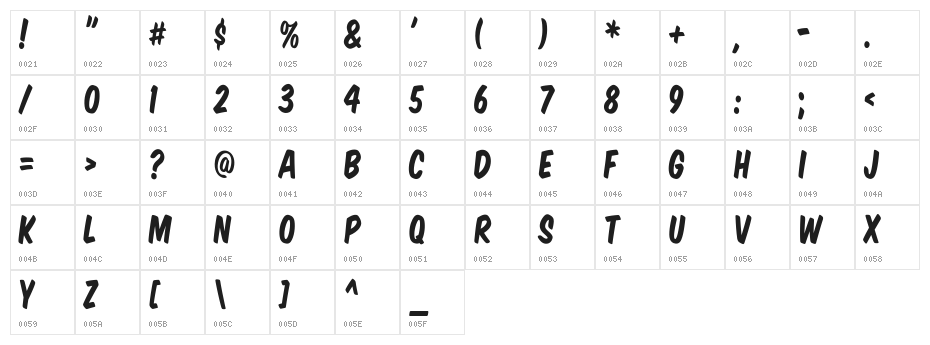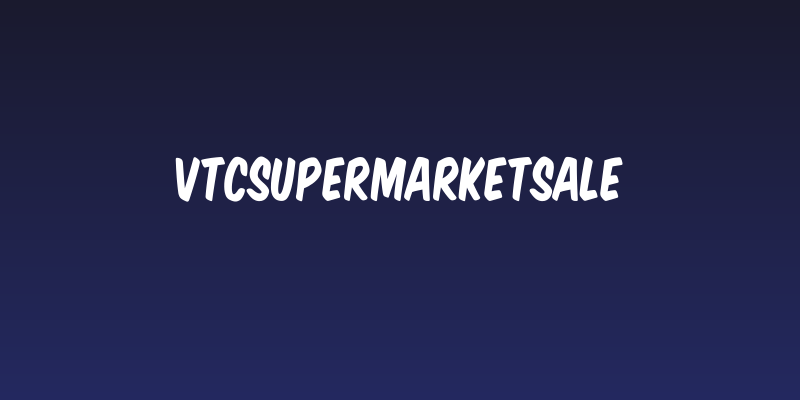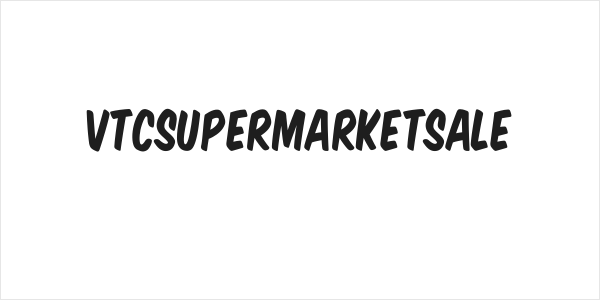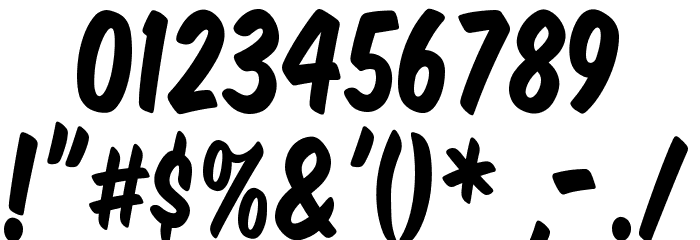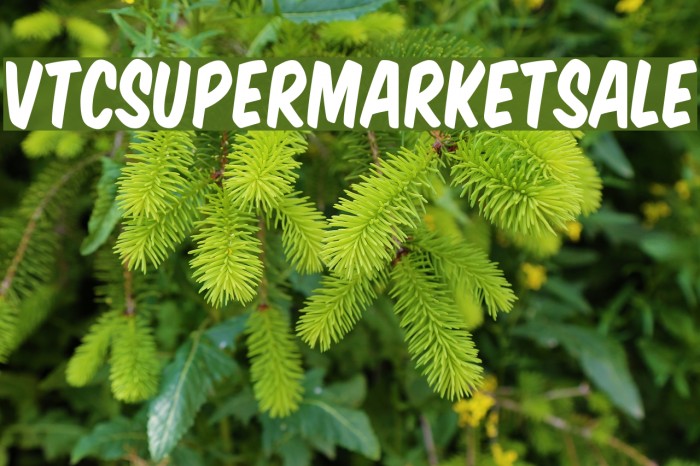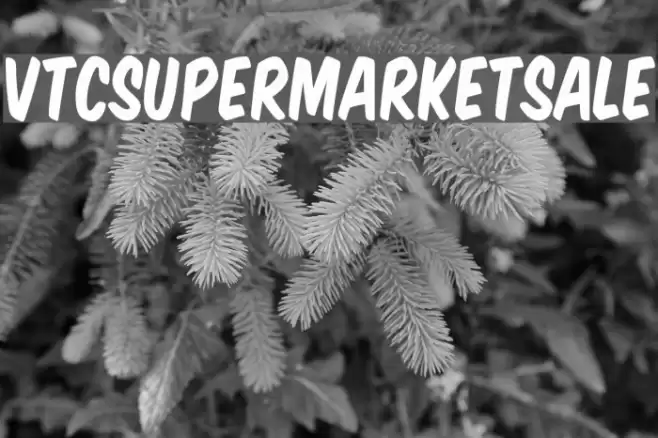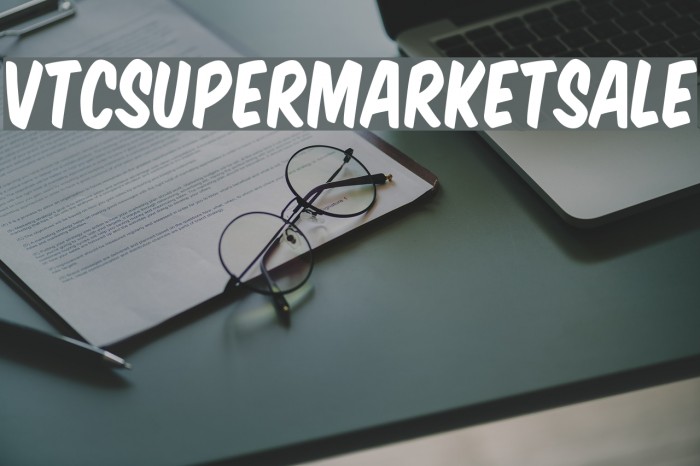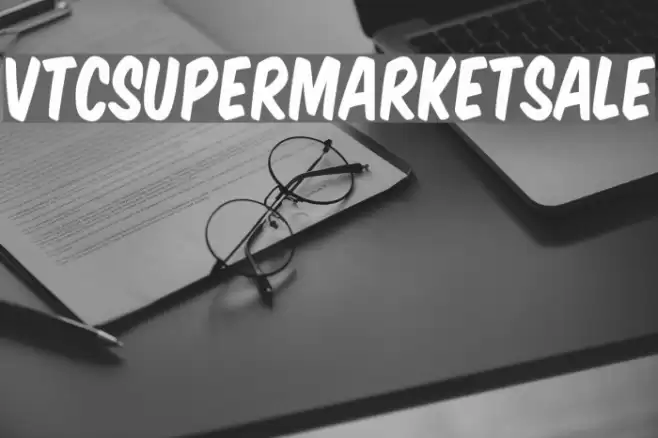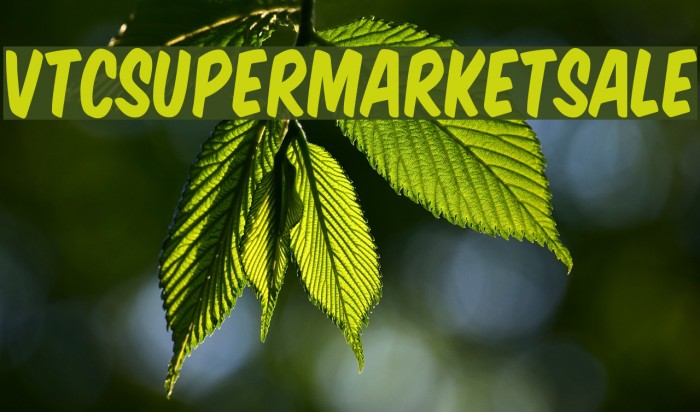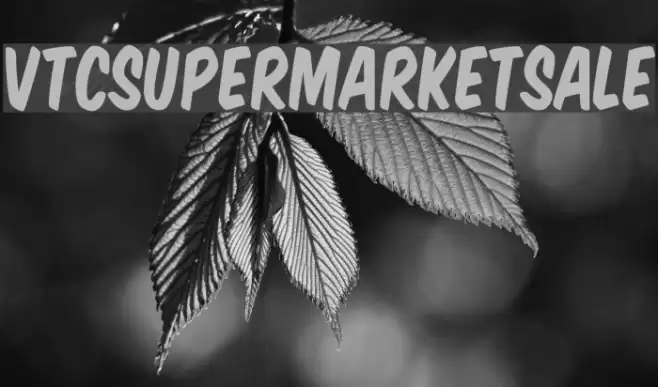
VTCSuperMarketSale Font
VTCSuperMarketSale Description
This font features a bold and energetic style with a playful and informal appearance. The characters are slightly slanted, giving a sense of movement and dynamism. The strokes are thick and rounded, contributing to a friendly and approachable look. The uppercase and lowercase letters maintain a consistent style, with a slight variation in size and shape that adds to the casual feel. The numbers and special characters are equally bold and maintain the same playful aesthetic. This font is well-suited for projects that require a lively and engaging typeface.
| Overall Style | Playful, Energetic |
| Use Case | Headlines, Posters, Branding |
| Proposed Projects | Ideal for posters, advertisements, children's books, and branding that requires a fun and energetic vibe. |